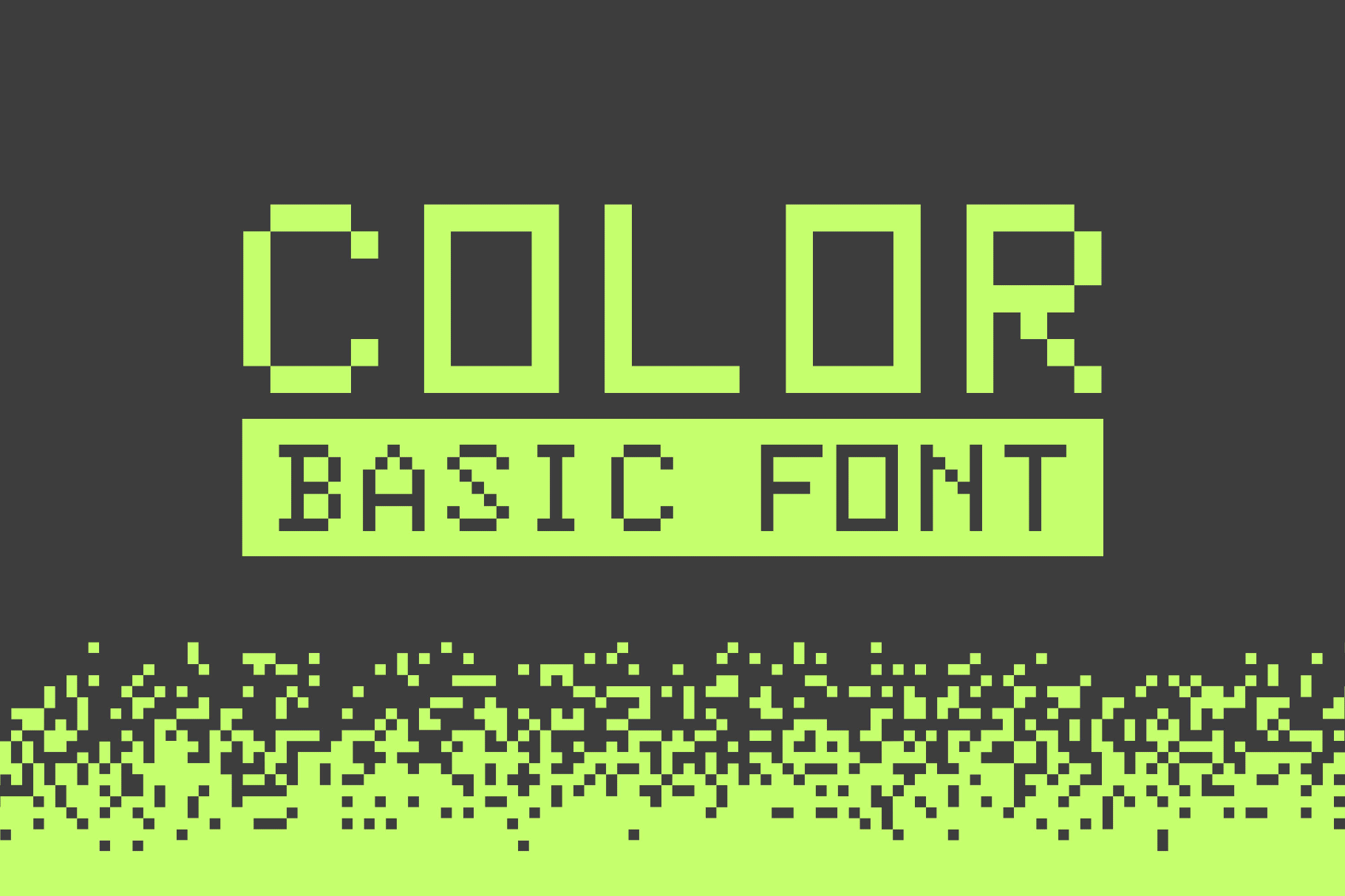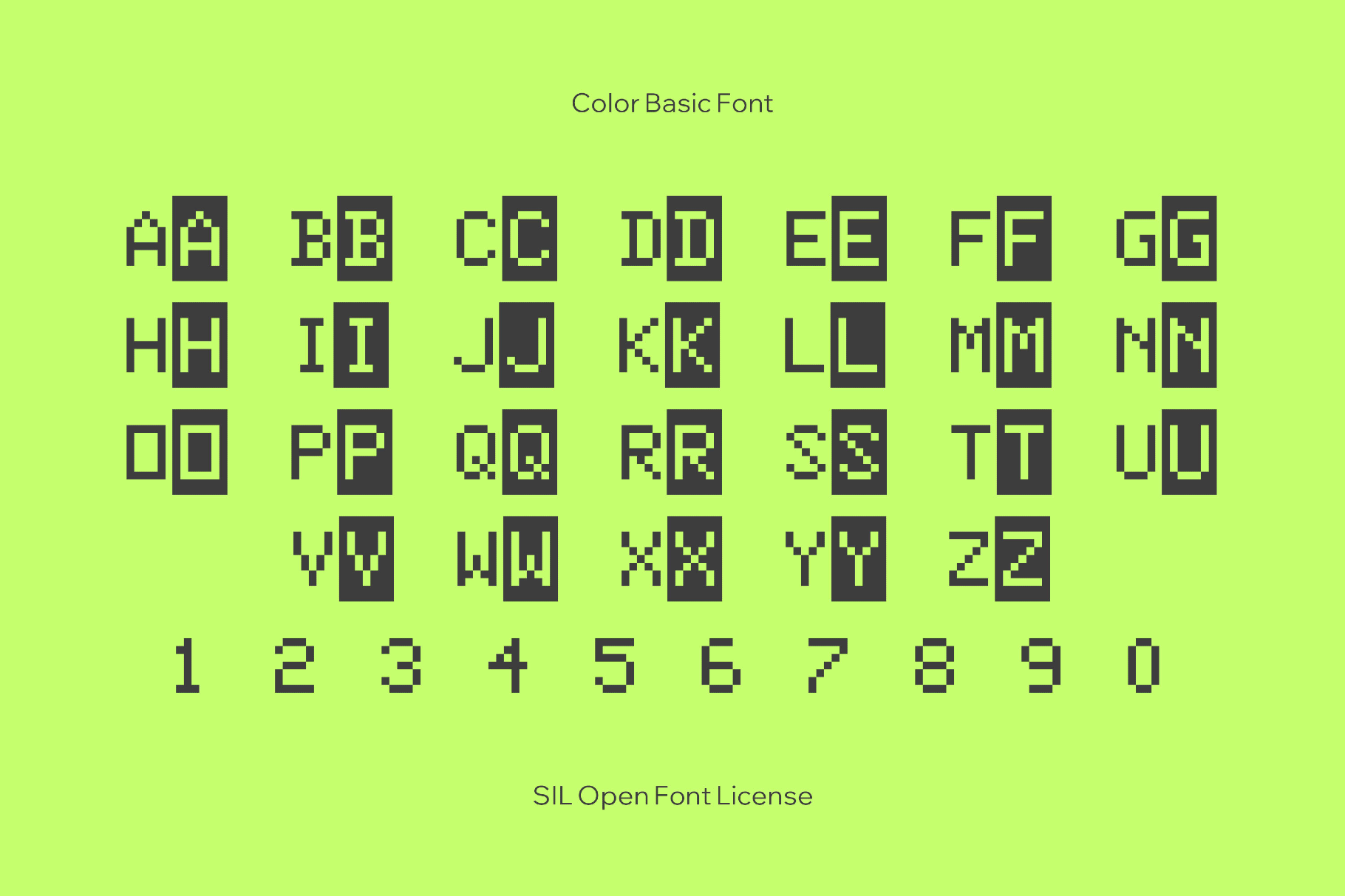
Color Basic Font
Color Basic
This bold, pixel font looks like early educational software, primary-color packaging, and late-’90s web graphics. Its rounded forms and toy-like simplicity work well for kids’ branding, posters, packaging, app splash screens, emulator overlays, devlog graphics, UI mockups, educational materials, logos, and social media visuals.
- Two sets of uppercase Latin letters: a primary set plus inverse-style variants.
- International characters with multilingual support across extended Latin scripts.
- Extra symbols and basic mathematical operators.